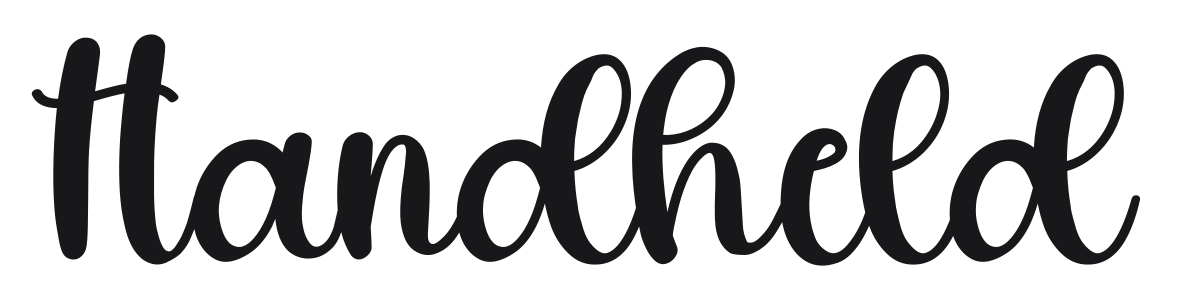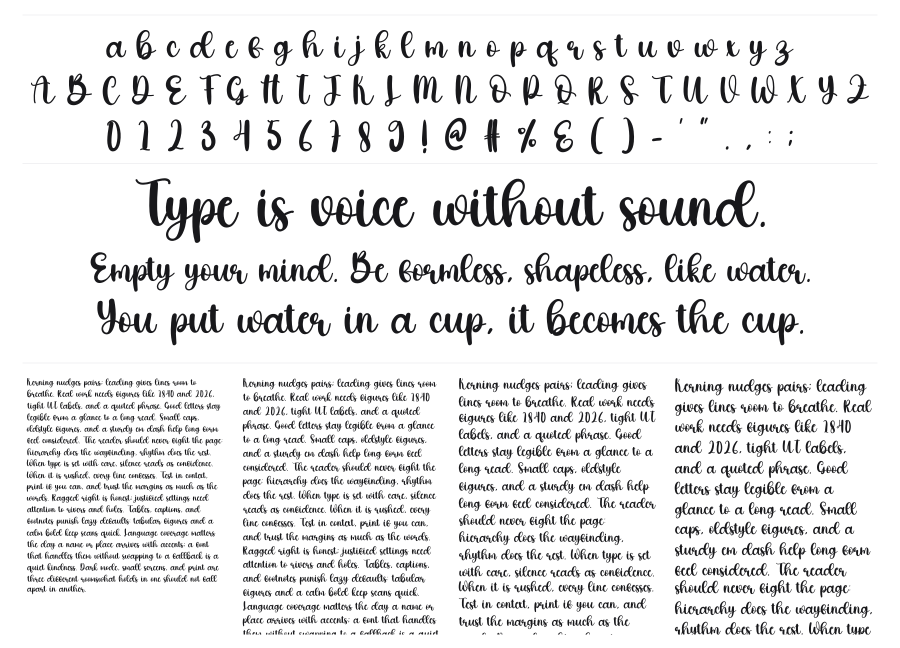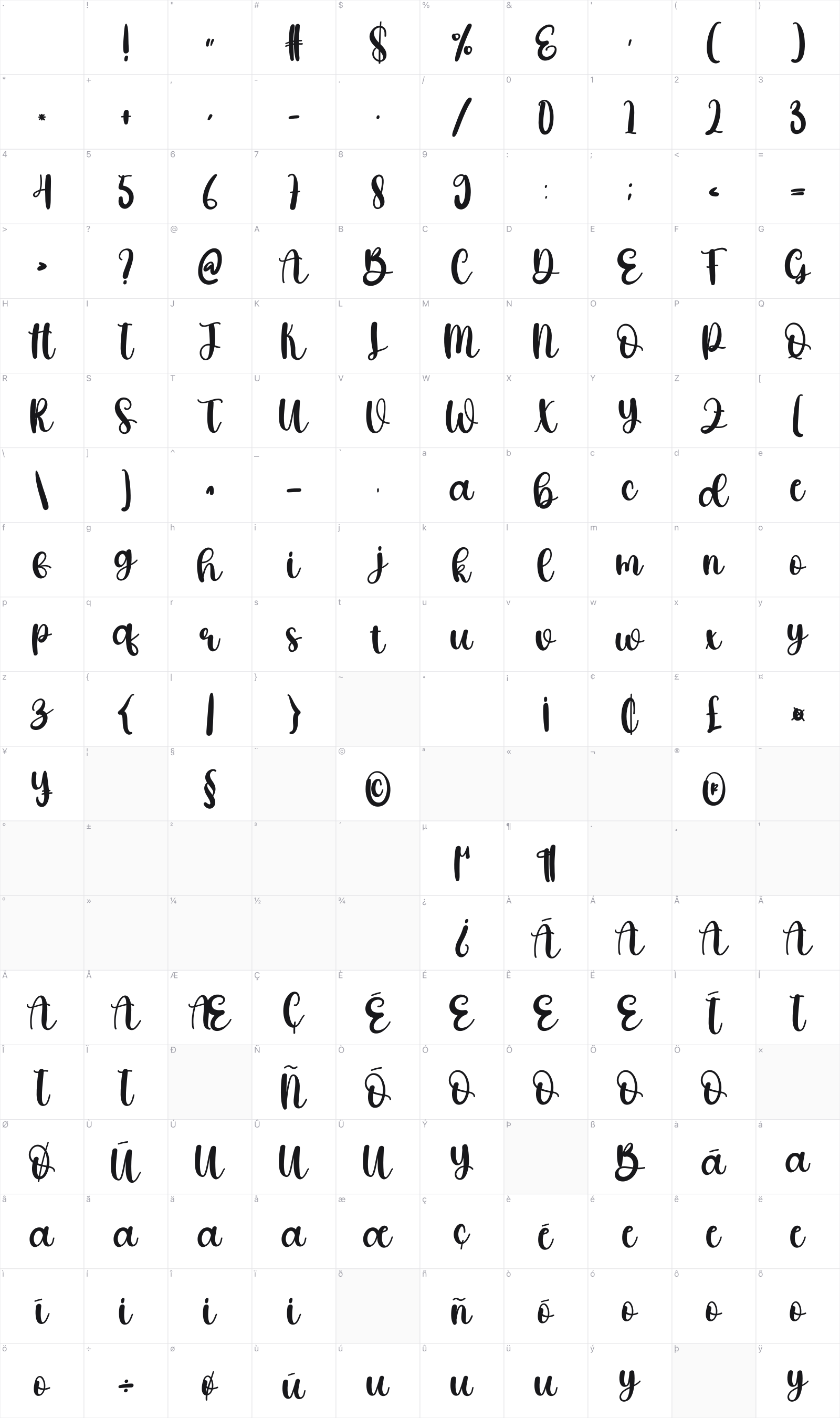
Handheld
Handheld is a bold casual script with bouncy, connected letters and flowing loops that feel genuinely handwritten. The thick downstrokes and thin hairline connectors give it enough contrast to read well at large sizes without feeling stiff. It has the kind of friendly, energetic personality that works well across wedding stationery, packaging, and social media graphics.